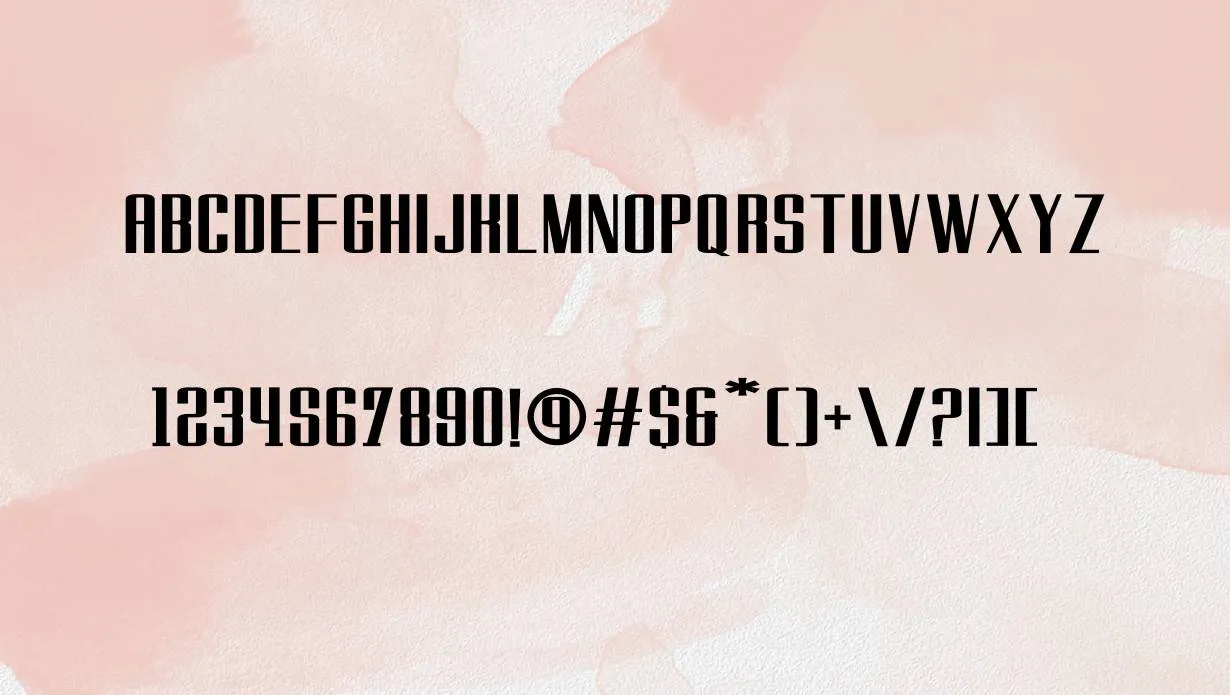
Lumen Headline Font is a sleek and modern typeface with a clean and professional appearance. Its readability and contemporary design make it suitable for website headlines, business documents, and modern layouts.
| Name | Lumen Headline Font |
| Designer | Chris Mizen |